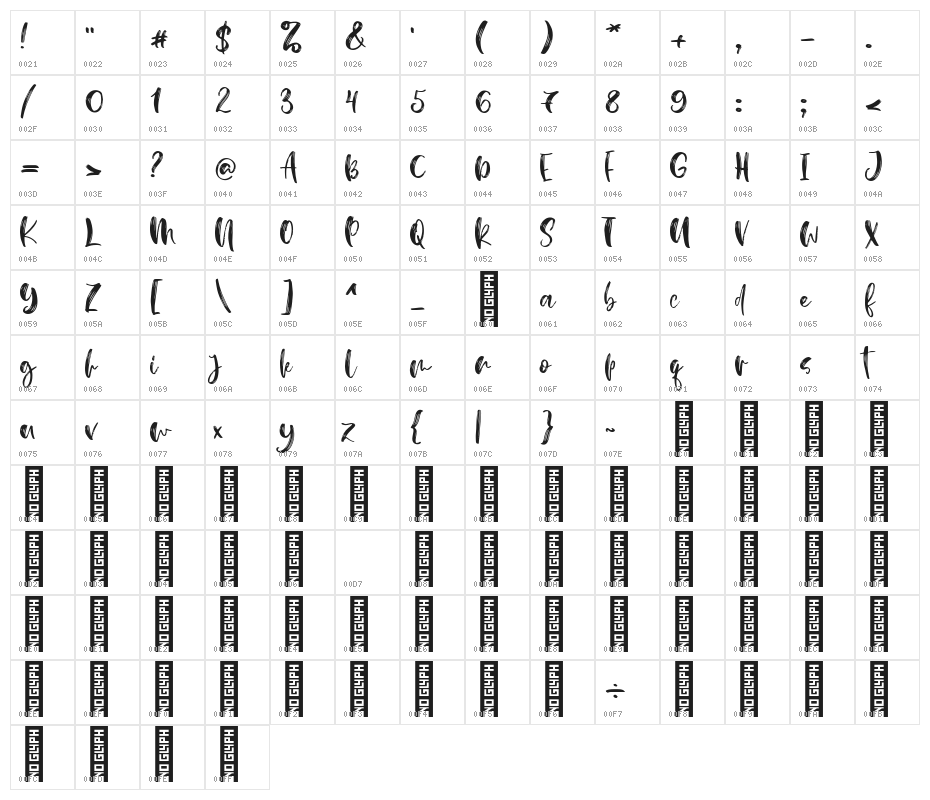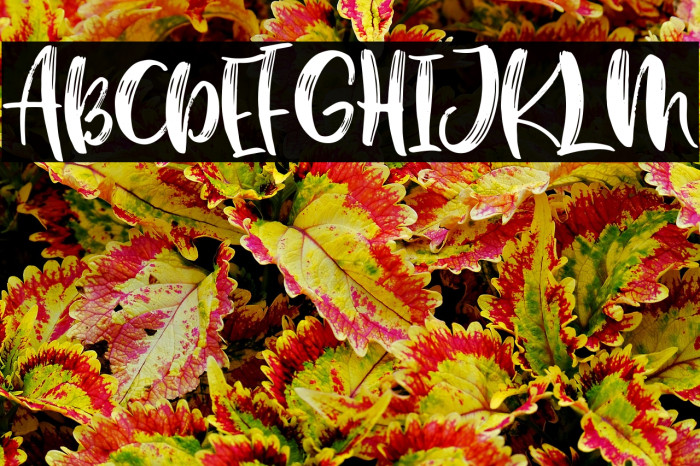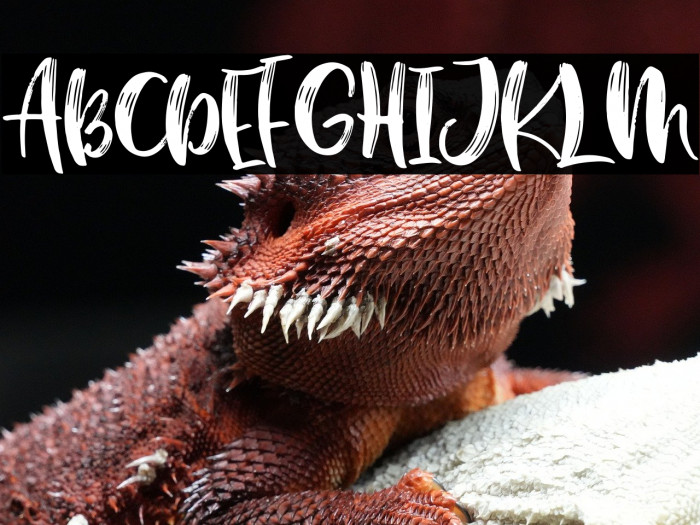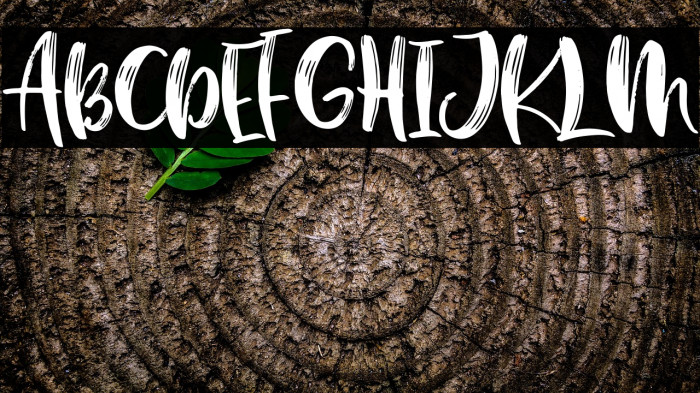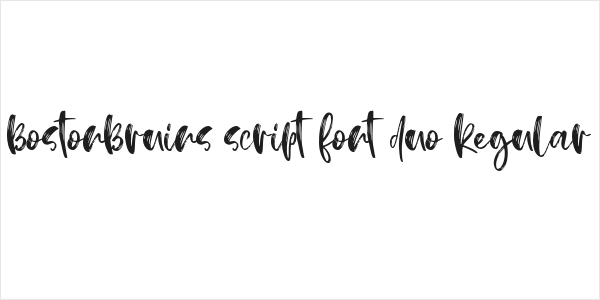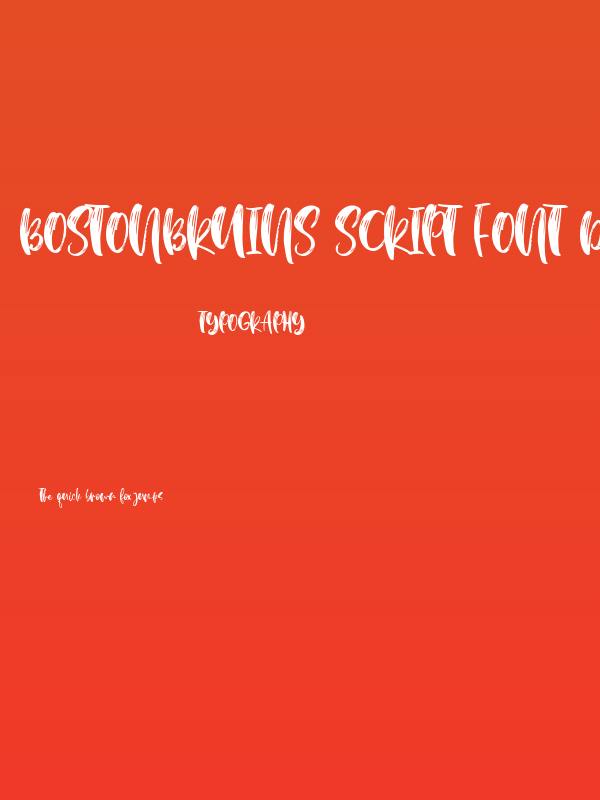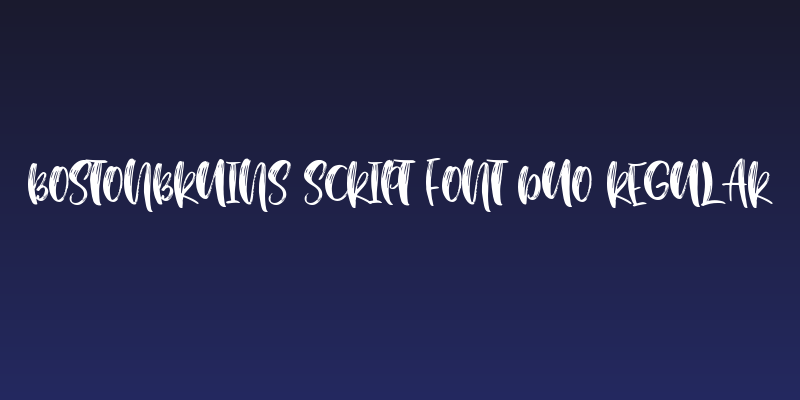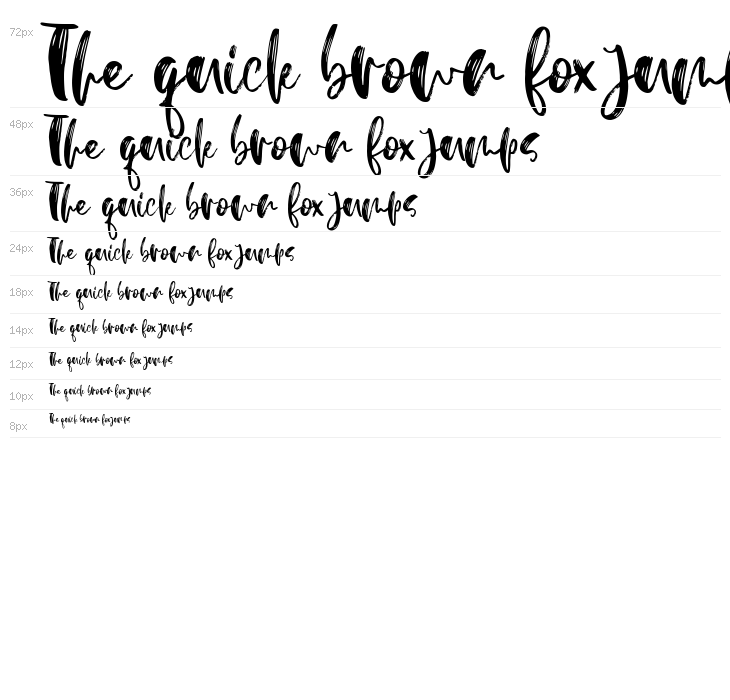
BostonBruins script font duo Regular Font
BostonBruins script font duo Regular Description
This font features a bold and expressive script style, characterized by its dynamic brush strokes and fluid motion. The uppercase letters are tall and commanding, while the lowercase letters maintain a playful and casual feel. The numbers and special characters are equally bold, ensuring consistency across all elements. The overall appearance is artistic and energetic, making it ideal for projects that require a strong visual impact. The font's brush-like texture adds a handcrafted touch, enhancing its appeal for creative and informal designs.
| Proposed Projects | Ideal for branding, posters, invitations, and any design that seeks to convey creativity and energy. |